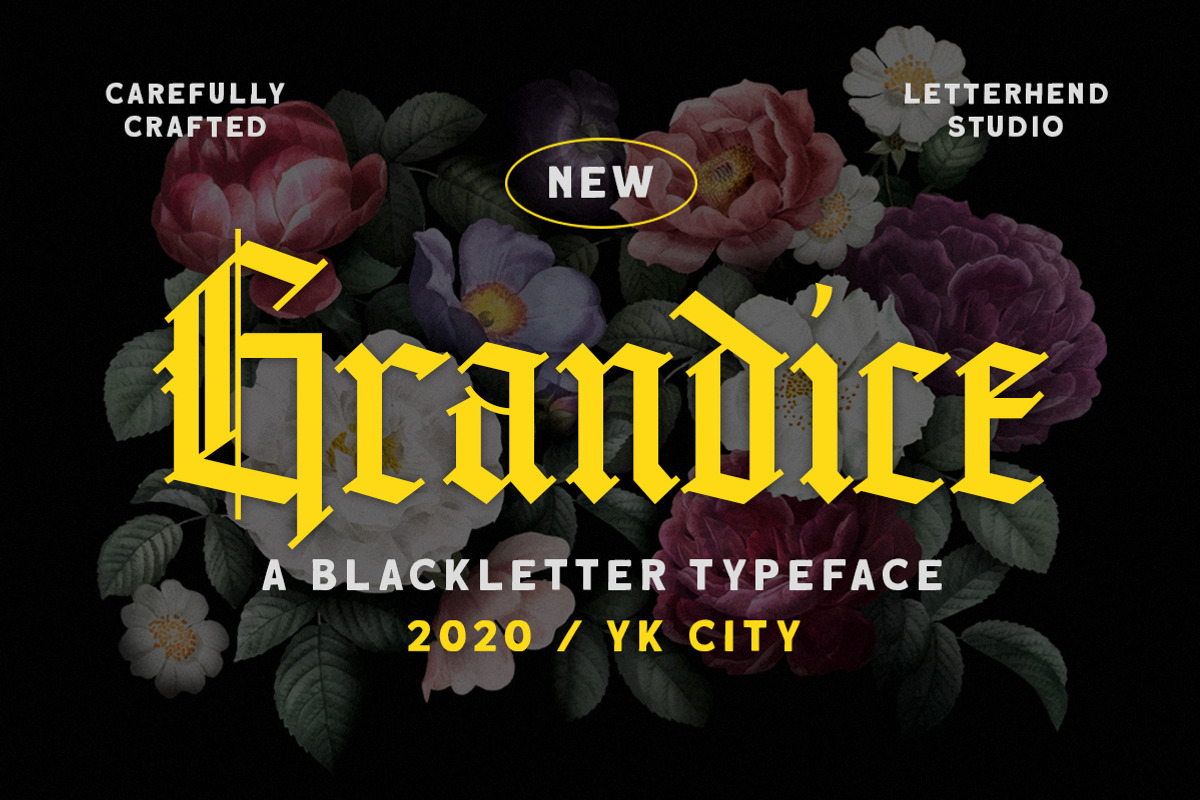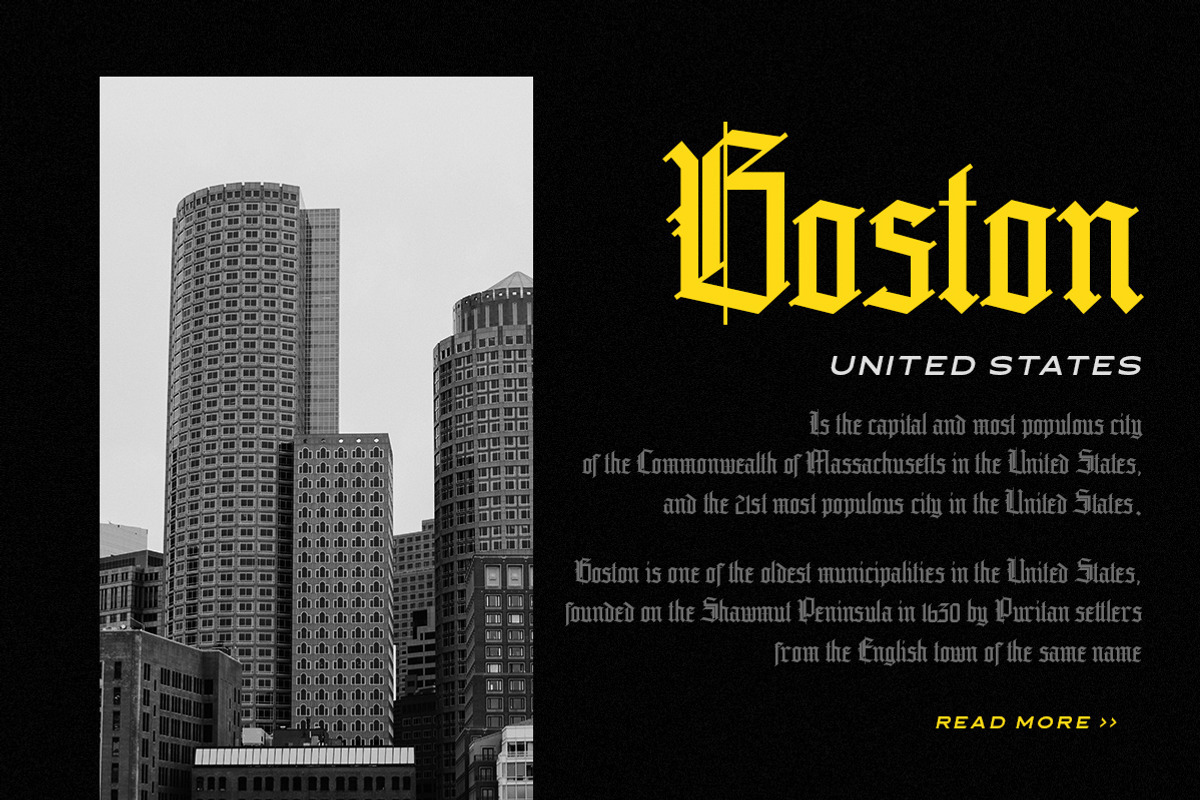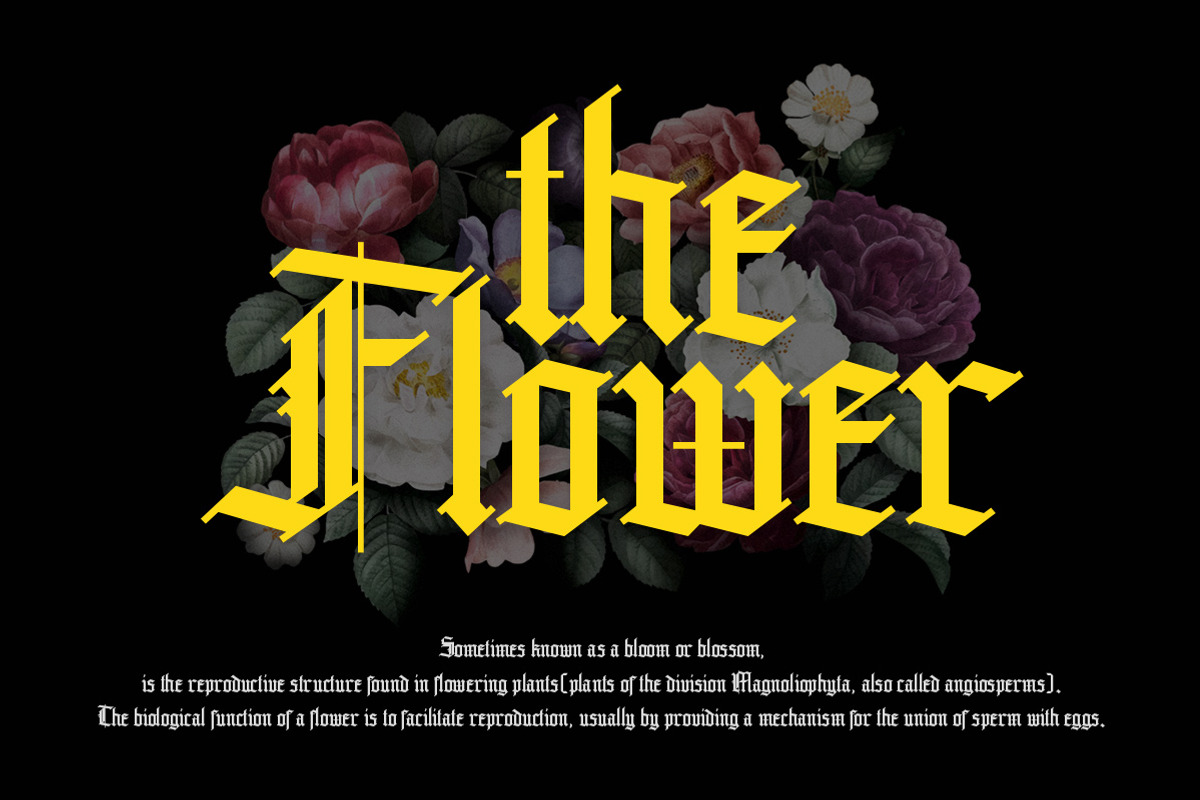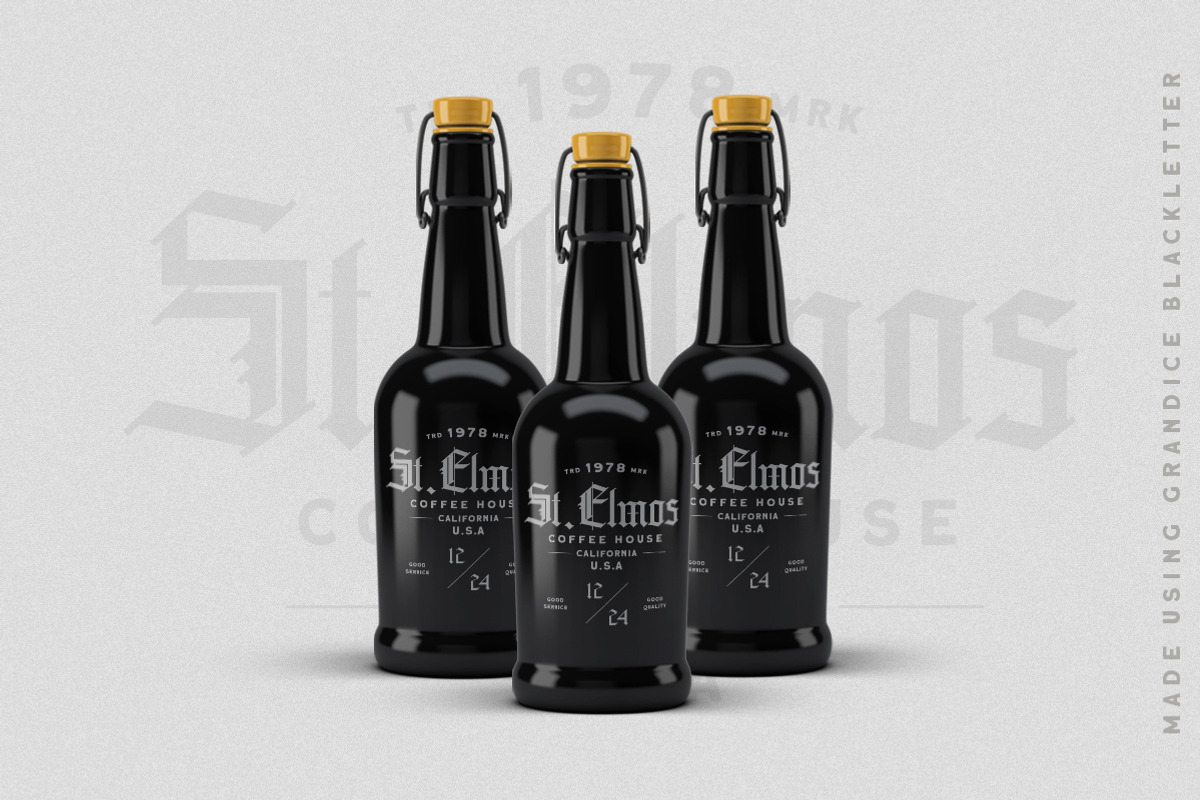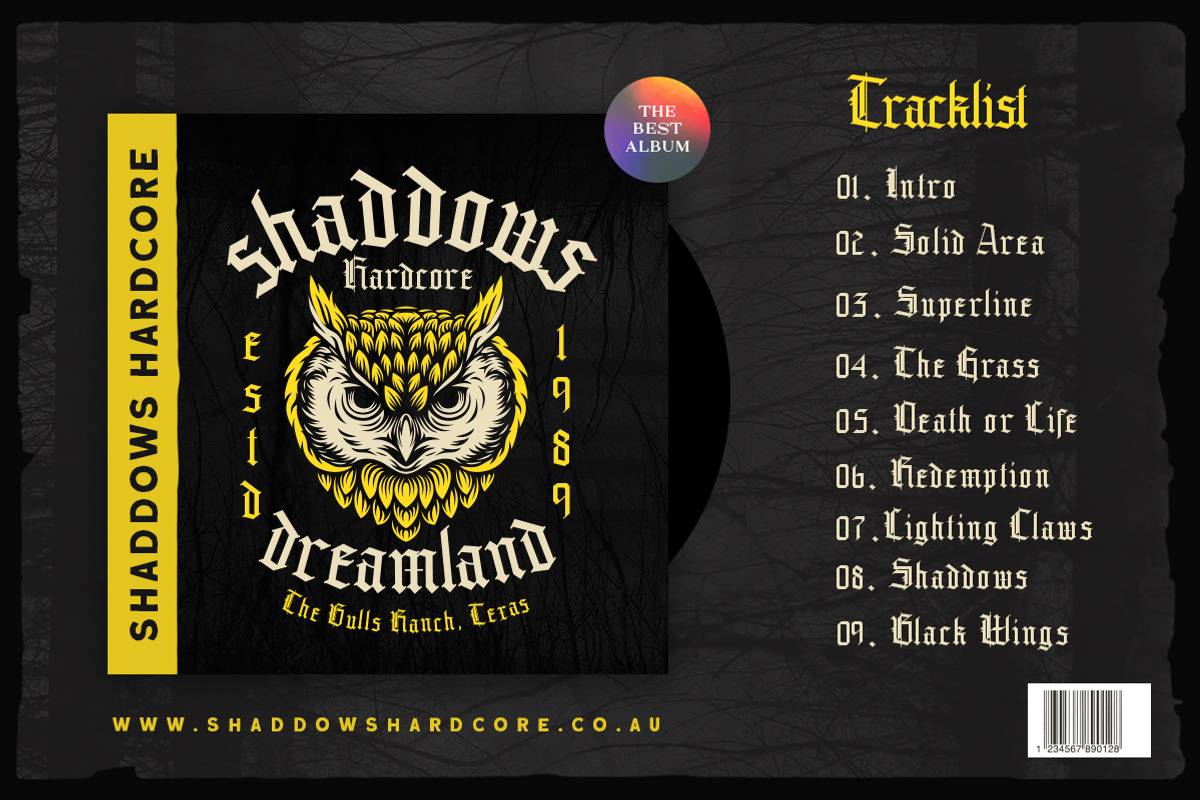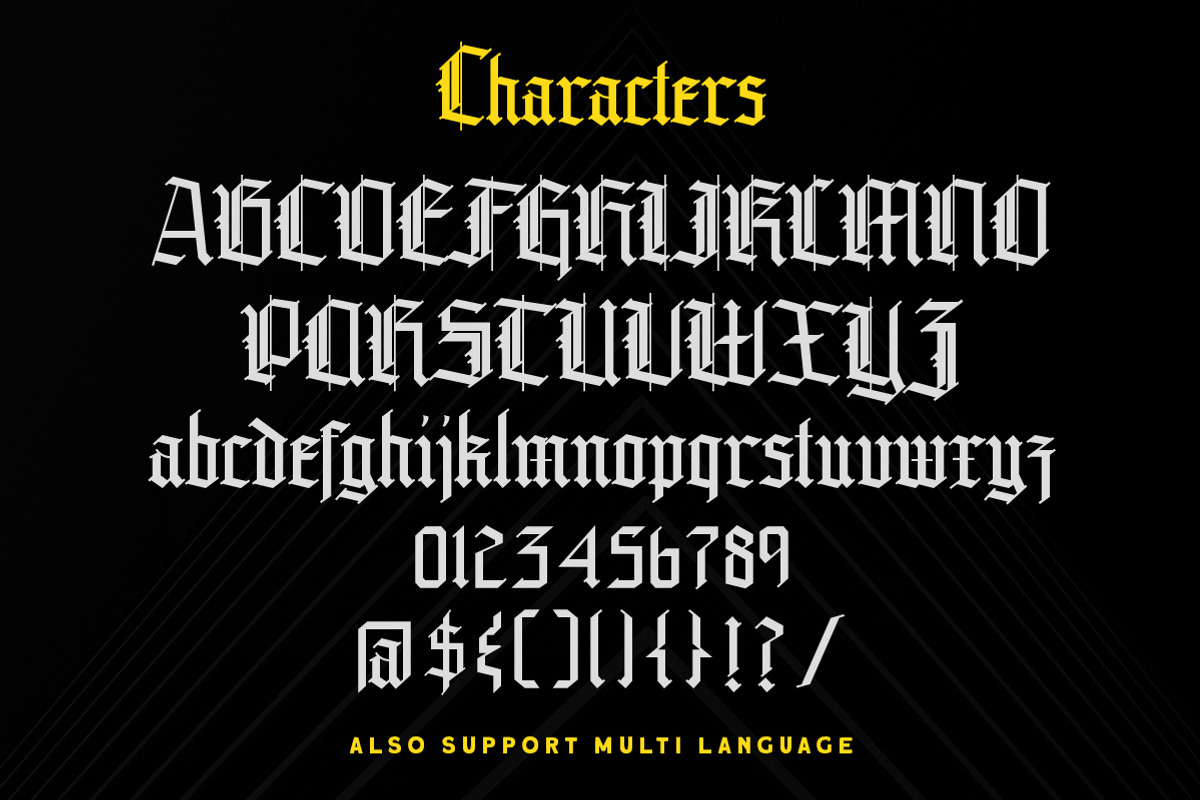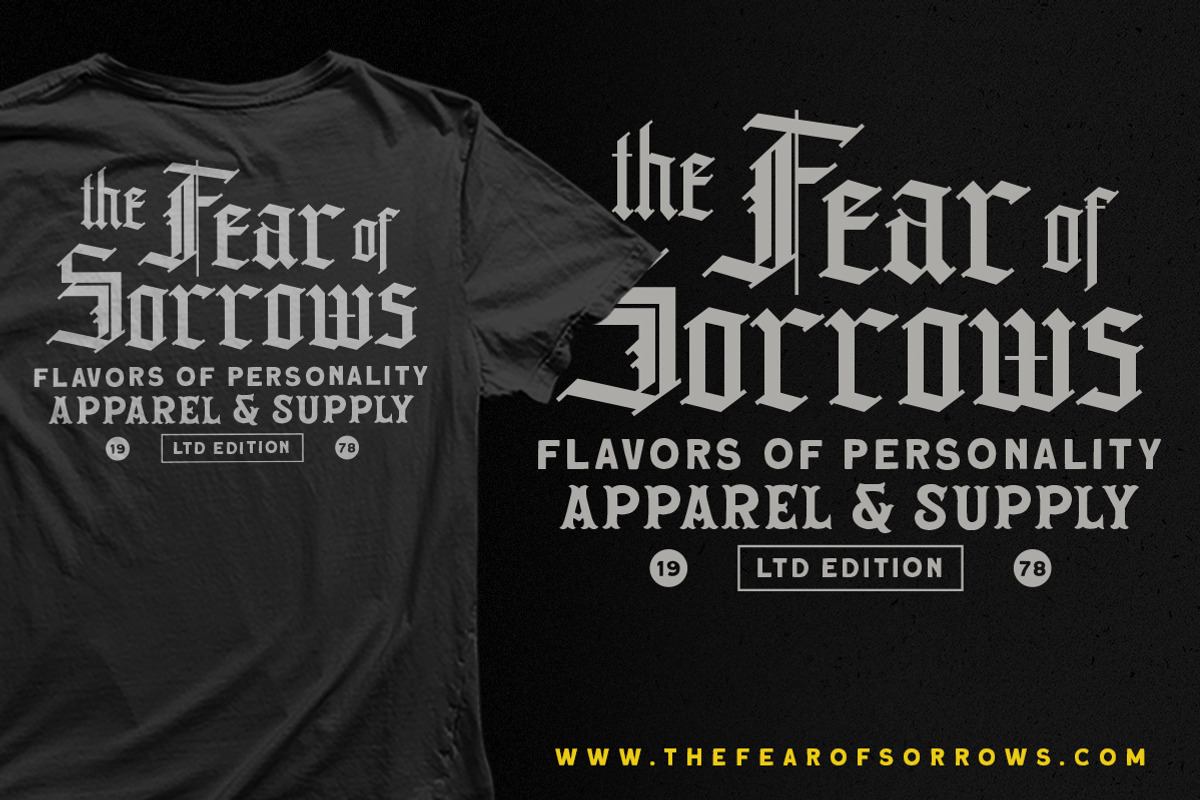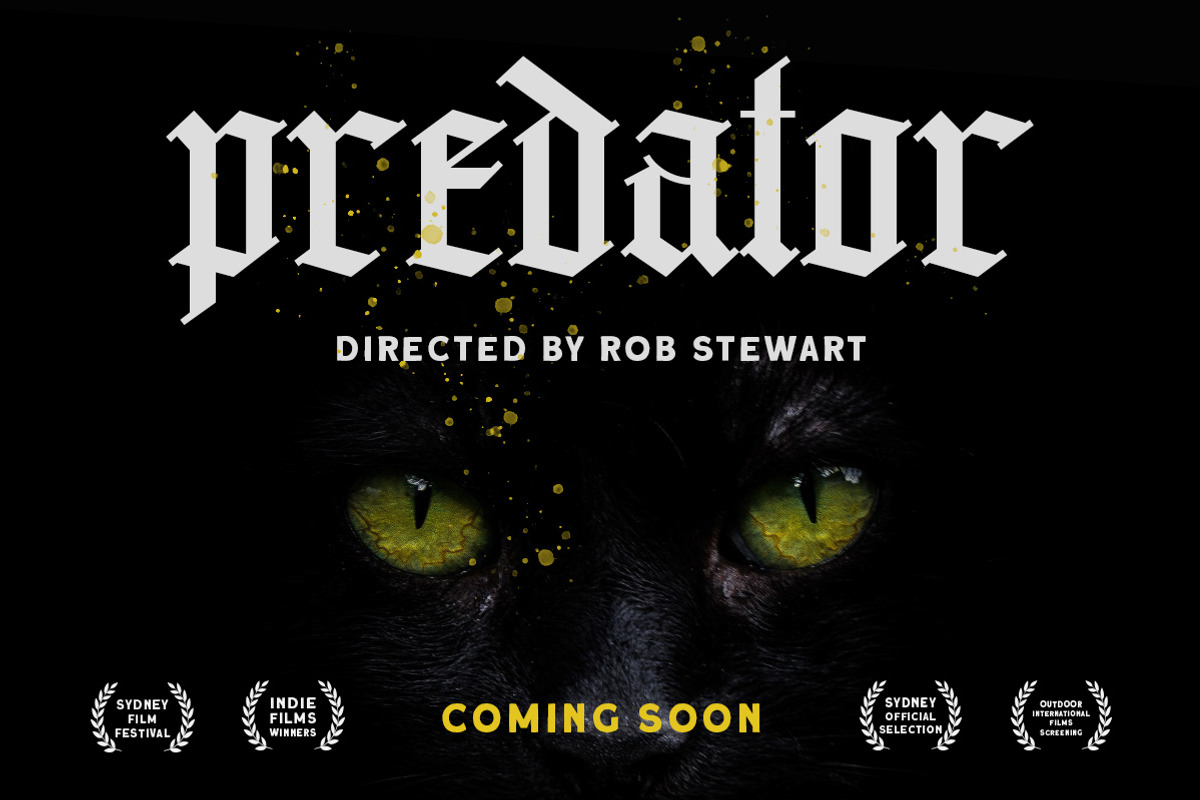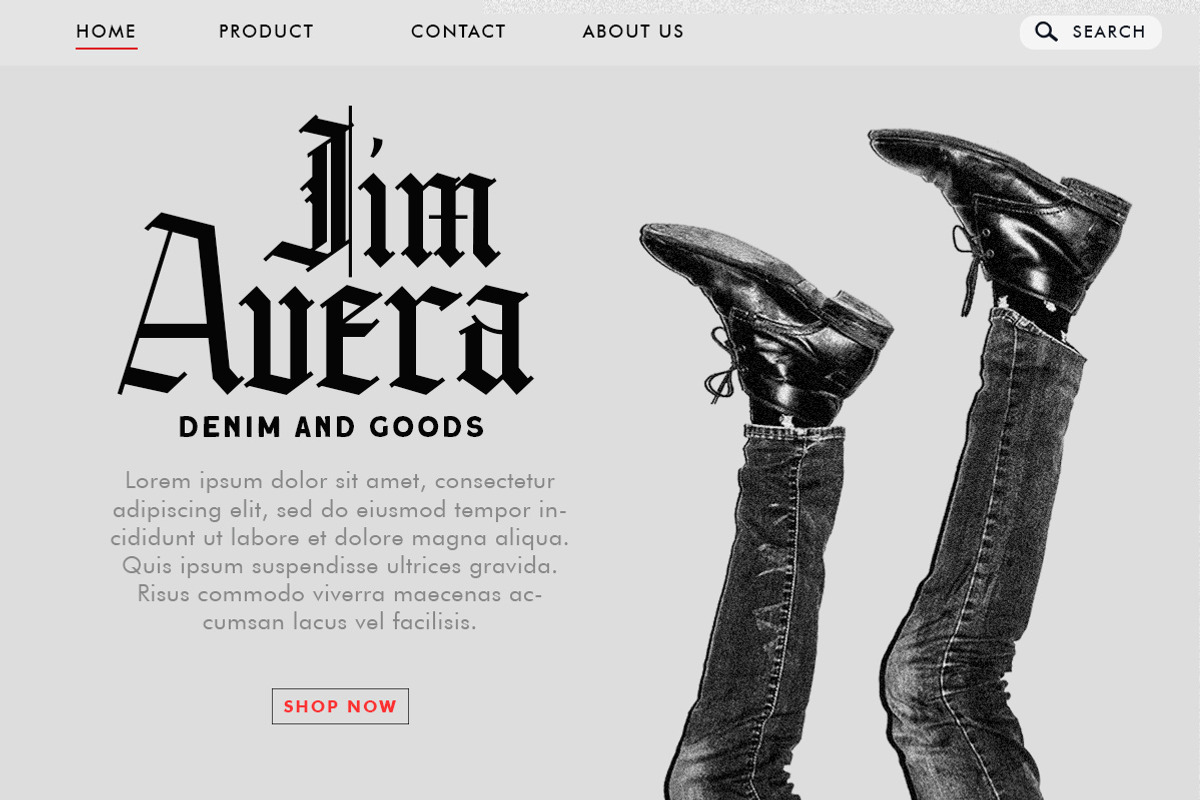
Grandice - Blackletter Typeface
Introducing, Grandice- A blackletter typeface. This type of font perfectly made to be applied especially in logo, and the other various formal forms such as Logo, Clothing, Fashion, Headline, or any type of advertising purpose.
- stylistic alternate